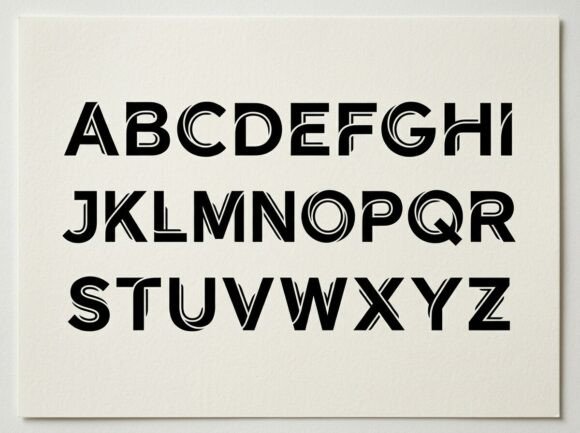
Introducing Donie Font: A Stunning Decorative Display Font
Are you tired of using the same old fonts for your designs? Do you want to add a touch of uniqueness and creativity to your projects? Look no further than Donie Font, a decorative display font that is sure to turn heads. In this article, we’ll take a closer look at what makes Donie Font special and how it can elevate your designs.
Donie Font is a stunning decorative display font designed to be the center of attention. With its unique artistic elements and strong visual personality, this font is perfect for creators who want to break away from the ordinary. Whether you’re working on a bold headline, artistic logo, or creative packaging, Donie Font is versatile enough to make a lasting impression.
What to Expect from Donie Font
Before you make a purchase, it’s essential to note that Donie Font is an ALL-CAPS (Uppercase Only) display typeface. This means it does not include lowercase letters. It is specifically designed for high-impact headlines, logos, and decorative initials where every letter is a work of art.
This unique design choice allows for a level of detail and craftsmanship that would be impossible with traditional fonts. Each uppercase letter is carefully crafted to make a statement, ensuring your designs stand out from the crowd.
Donie Font is a dream come true for designers and crafters looking to add a touch of elegance and sophistication to their projects. With its professional and polished finish, this font is suitable for a wide range of applications, including:
- Graphic Design – Use Donie Font to create stunning posters, flyers, and brochures that grab attention.
- Logo Design – Create a lasting impression with a custom logo that showcases your brand’s personality.
- Packaging Design – Add a touch of luxury to your product packaging with Donie Font.
- Crafting – Use Donie Font to create beautiful handmade cards, gift tags, and other paper crafts.
Tips for Using Donie Font
To get the most out of Donie Font, here are a few tips to keep in mind:
- Use it sparingly – Donie Font is designed to make a statement, so use it sparingly to avoid overwhelming your design.
- Experiment with colors and textures – Donie Font looks great with bold colors and textures, so don’t be afraid to get creative.
- Pair it with a simple font – Balance out Donie Font with a simple font to create visual interest and hierarchy.